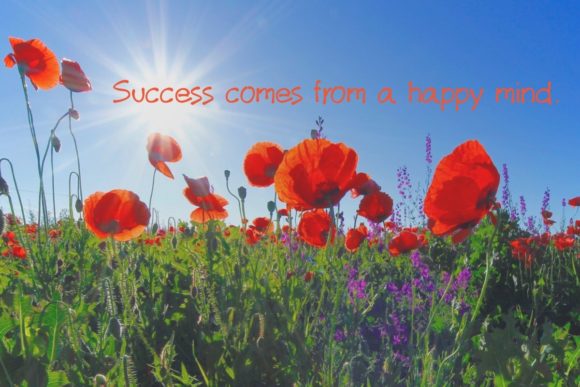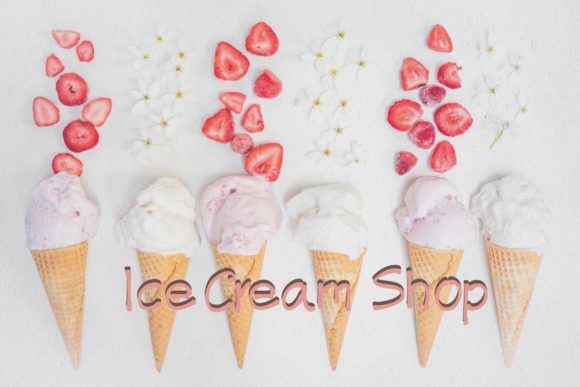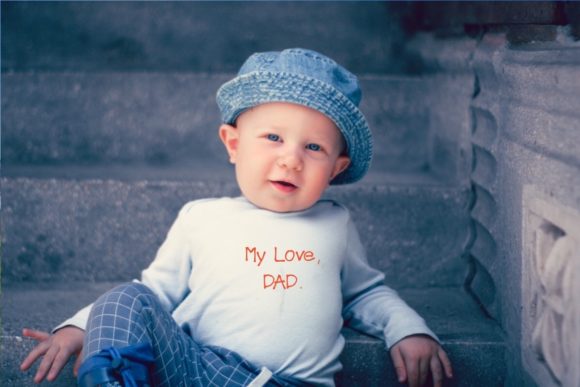
Introduction to Not Perfect, but Fun Font
Do you remember the first time you stumbled upon a beautifully handwritten chalkboard quote? The way the imperfections and quirks of the handwriting seemed to add character to the message, making it feel more personal and authentic? That’s exactly the magic of the Not Perfect, but Fun Font.
This charming, free font is designed to evoke that same sense of whimsy and charm, making it a valuable addition to any designer’s toolkit. Whether you’re working on a creative project, creating educational materials, or simply looking to add some personality to your designs, Not Perfect, but Fun Font is sure to deliver. With its high-quality, transparent background and friendly feel, this font is a design resource that’s hard to resist.
From chalkboard quotes to teaching materials, the Not Perfect, but Fun Font is the perfect choice for anyone looking to add a touch of personality to their designs without sacrificing quality or authenticity.
Key Features of Not Perfect, but Fun Font
- High-quality design for creative projects, offering a unique and playful touch.
- Comes in a transparent background, allowing for seamless integration with various design elements.
- Available in multiple sizes, ranging from 16px to 64px, catering to different design requirements.
- Resolution: Optimized for print and digital use at 300 DPI, ensuring crisp and clear display on various devices.
- Unique characteristics include quirky and hand-drawn elements, adding a personal touch to any design project.
Honest Review: Not Perfect, but Fun Font
As a designer, I’m always on the lookout for fresh design resources to spice up my creative projects. Recently, I stumbled upon the “Not Perfect, but Fun Font” – a quirky and charming font that’s perfect for adding a bit of whimsy to your designs.
Here’s what I like about it: ✨ High-quality vector files make it easy to scale up or down without losing any detail, ✨ a transparent background allows for seamless integration into any design, and ✨ the unique character set adds a touch of personality to any project.
Now, let’s talk about the not-so-perfect parts: ⚠️ The font is a bit rough around the edges, and some of the letters may not be entirely legible at smaller sizes. Additionally, there’s no comprehensive character map or guide available, which can make it a bit tricky to use.
Despite these limitations, I still think “Not Perfect, but Fun Font” is a great addition to any designer’s toolkit. It’s a free download, which is a definite bonus, and its quirky charm makes it perfect for projects where you want to stand out from the crowd.
- Pros:
- High-quality vector files
- Unique character set
- Perfect for adding a bit of whimsy to your designs
Overall, I’d give “Not Perfect, but Fun Font” 4 out of 5 stars. It’s not perfect, but it’s definitely fun, and I’d recommend it to anyone looking for a unique design resource.
Using Not Perfect, but Fun Font in Adobe Photoshop/Illustrator
For more advanced designers, Not Perfect, but Fun Font can be used in Adobe Photoshop and Illustrator. With a transparent background, you can easily layer the font over other design elements to create a unique and eye-catching visual. This font is perfect for creating high-quality graphics and designs that stand out from the crowd.
Applying Not Perfect, but Fun Font in PowerPoint/Word
Not Perfect, but Fun Font can also be used in PowerPoint and Word for presentations and documents. Its playful and creative feel makes it ideal for adding a personal touch to your content. With its transparent background, you can easily combine it with other design elements to create a cohesive and visually appealing look.
Common Use Cases for Not Perfect, but Fun Font
This font is perfect for social media, blog posts, presentations, and documents that require a creative and playful touch. It’s also great for designers looking for a free design resource to add some personality to their work.
Tips for Getting the Most Out of Not Perfect, but Fun Font
To get the most out of this font, experiment with different combinations of colors, shapes, and design elements. You can also use it in conjunction with other design resources to create a unique and eye-catching visual. With a little creativity, the possibilities are endless!